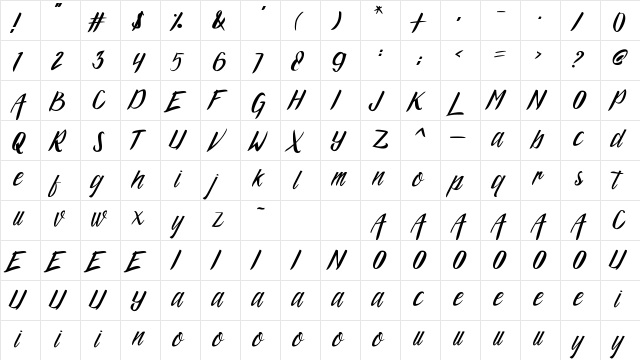
Argopuro Script Demo Regular
Design Context for Argopuro Script Demo Typeface
Argopuro Script Demo flows with the natural rhythm of handwritten lettering, making it ideal for designs that call for warmth and personal expression.